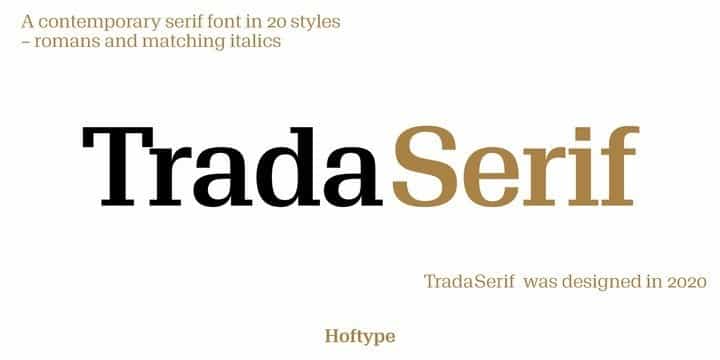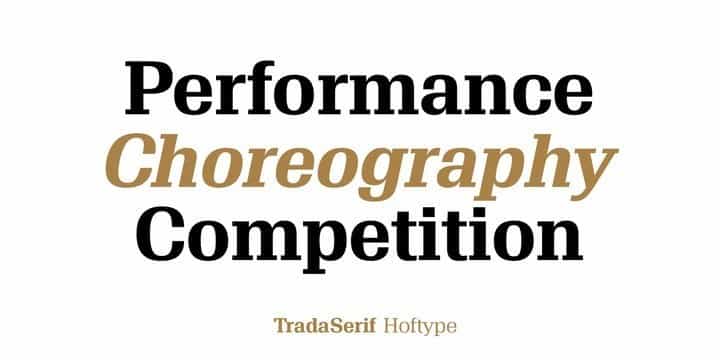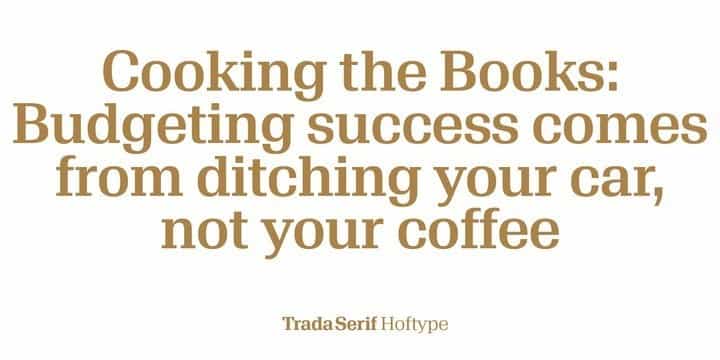
Introducing TradaSerif, the addition to the Trada font family. With an sharp appearance it upholds the essence and core design elements of TradaSans. Offering a selection of styles ranging from thin to strikingly bold. This font also delivers high quality text features and serves as an eye catching choice for headlines. With 20 tuned weights TradaSerif is well suited for typography tasks.